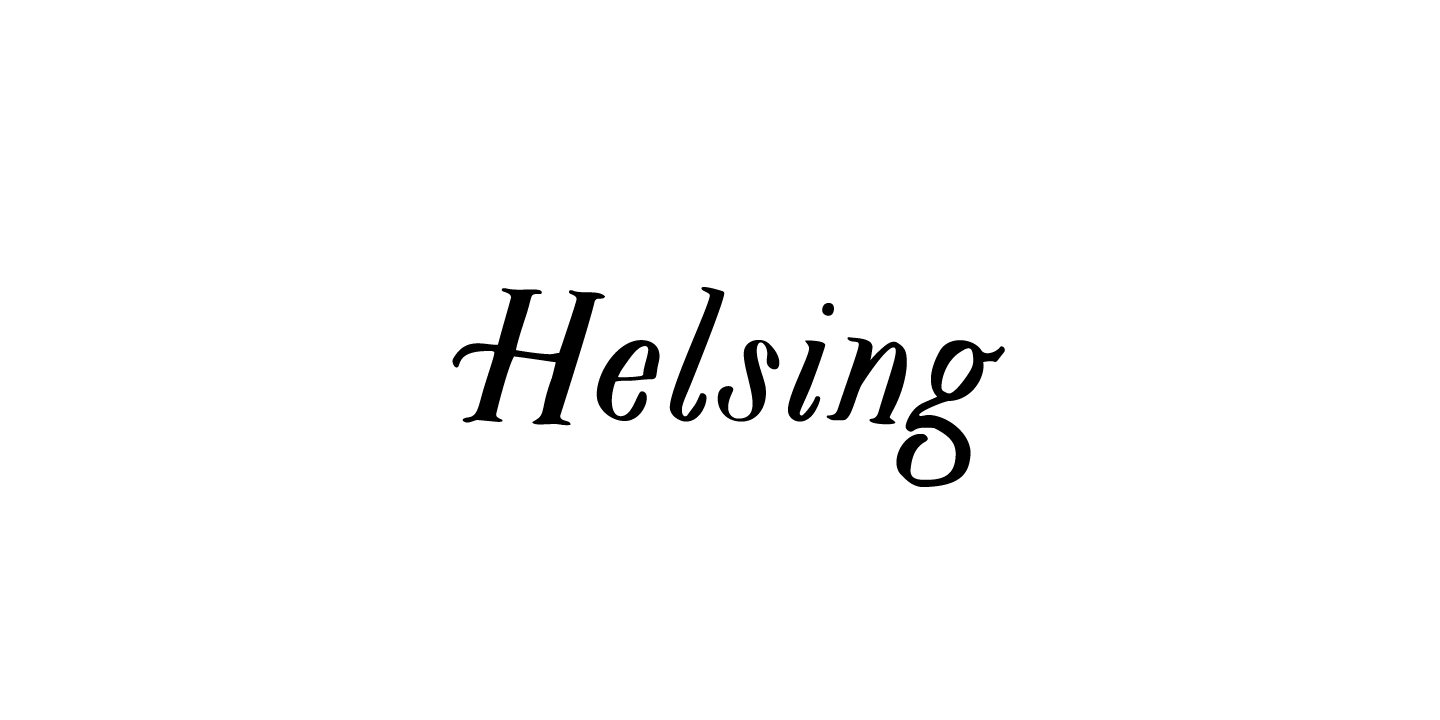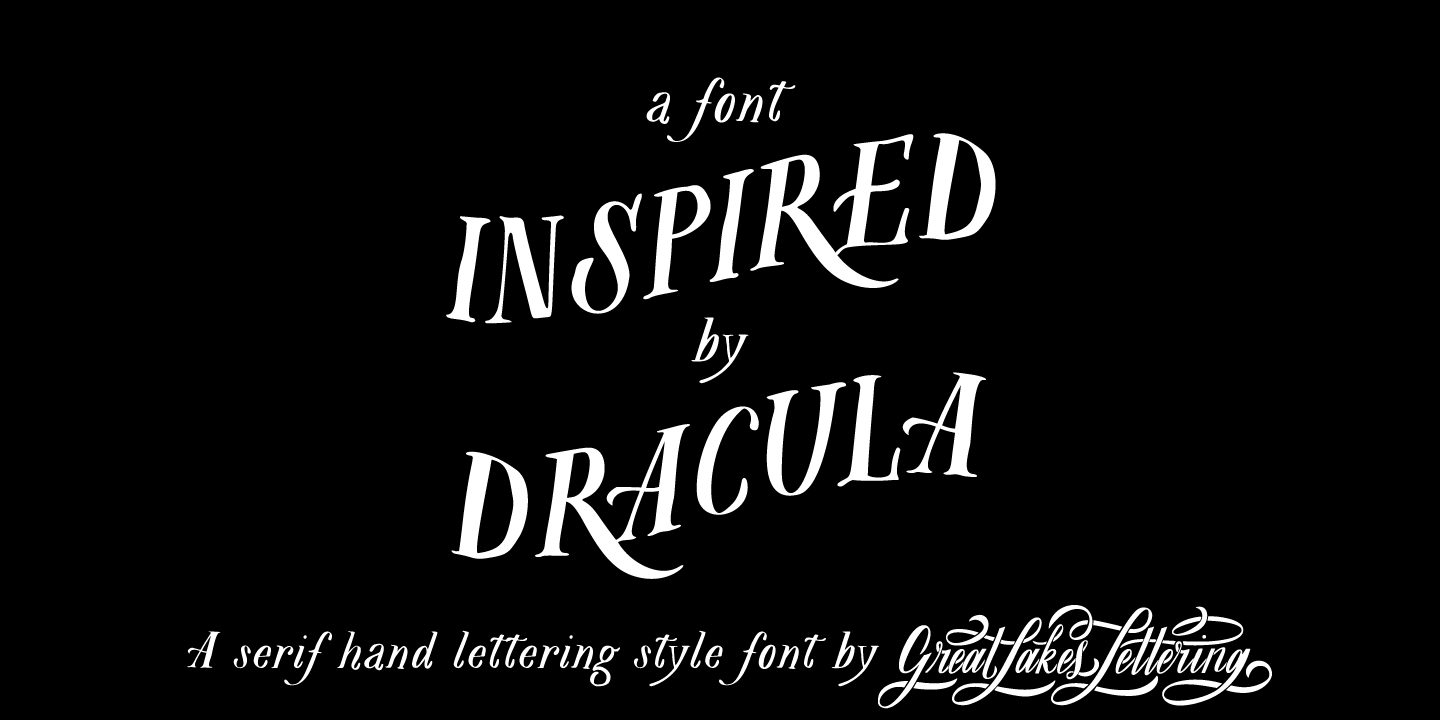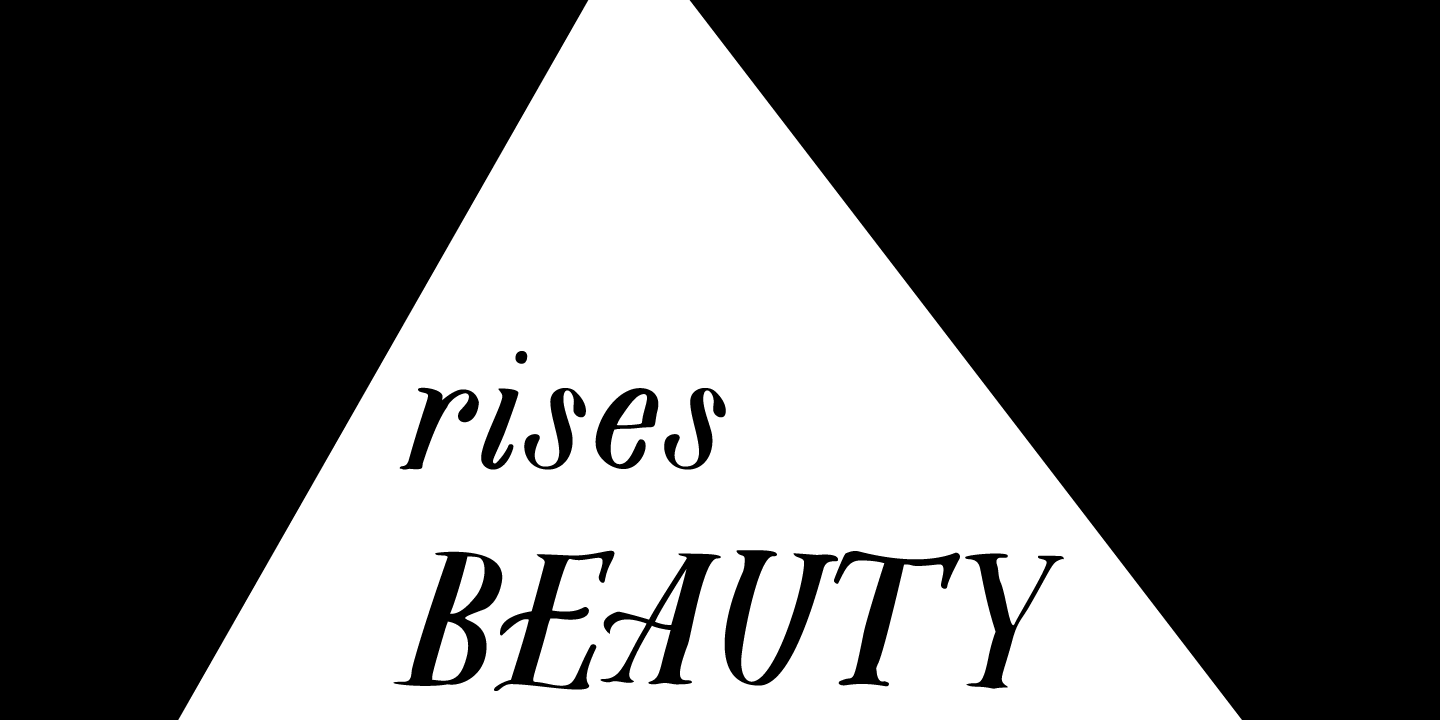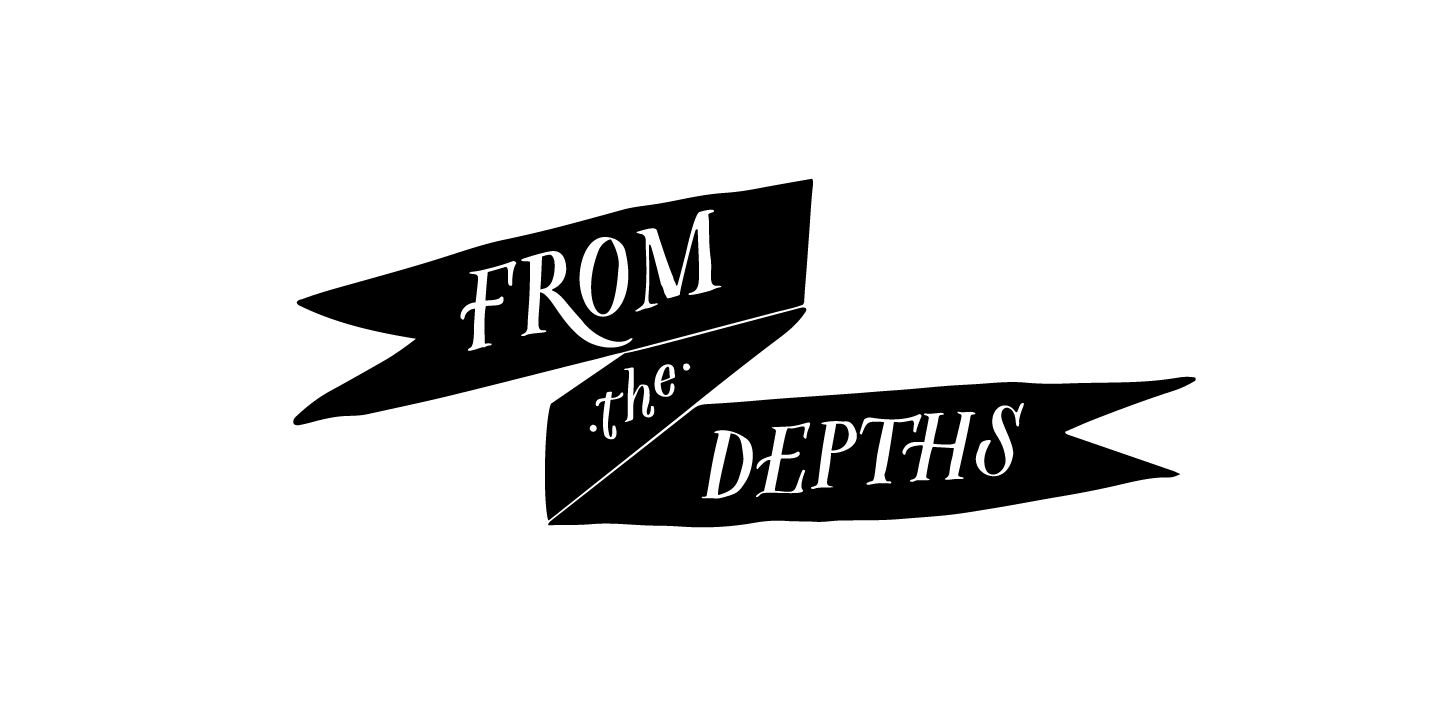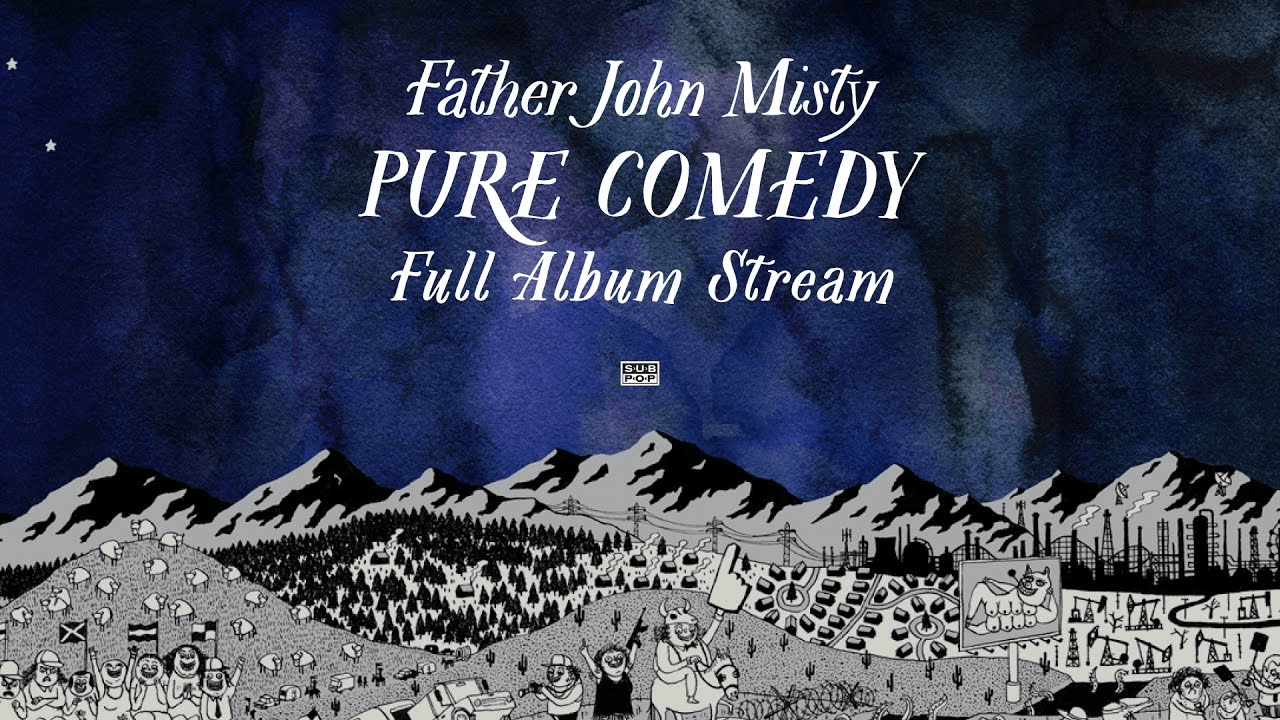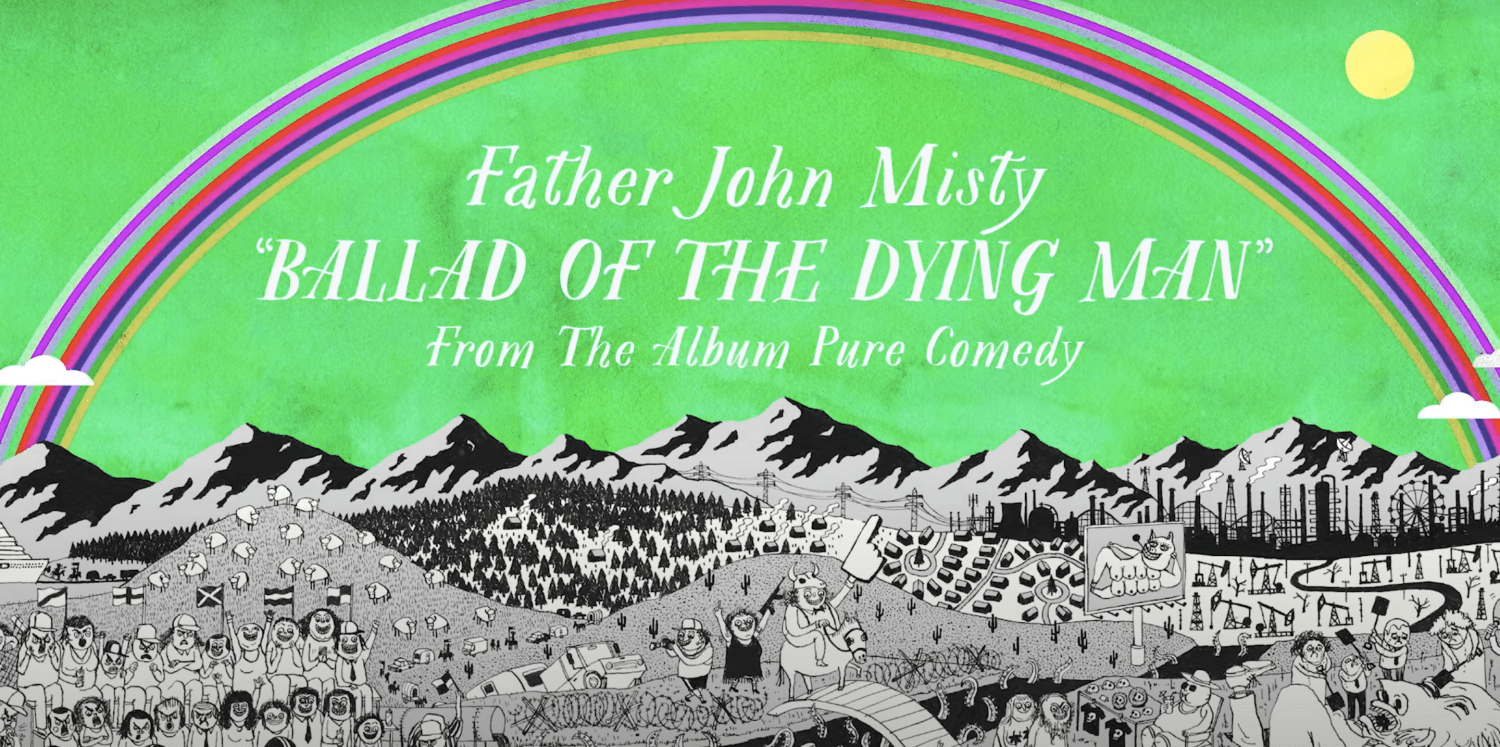
Helsing
Font Family by Great Lakes Lettering
Helsing is a serif style font inspired by Bram Stoker's 1897 Dracula as well as Edward Gorey's rendition of the story. Helsing is characterized by his slighting skewed baseline, subtle texture, thick and thin contrasts, and decorative legs.
Made as a graphic style font, Helsing is perfect for illustrative titles, small bodies of text, and pairing with contrasting lettering style fonts like Asterism.